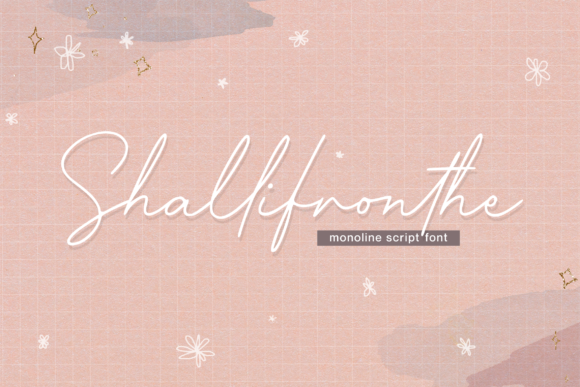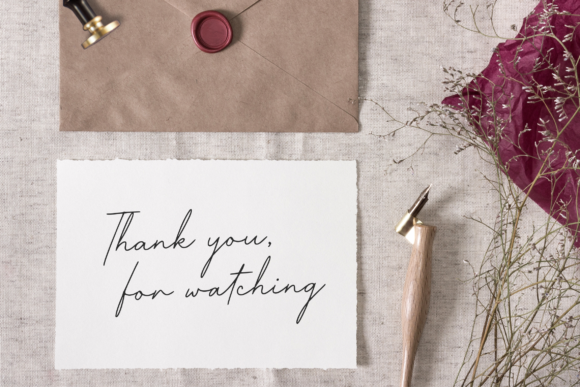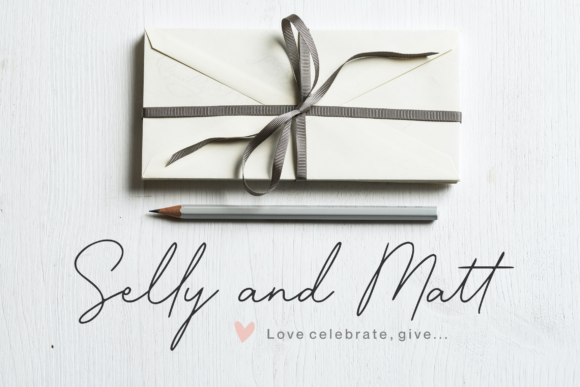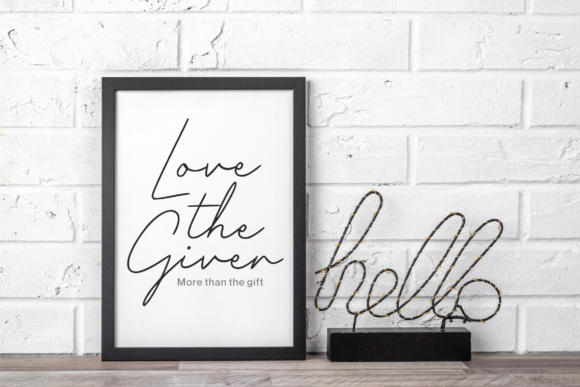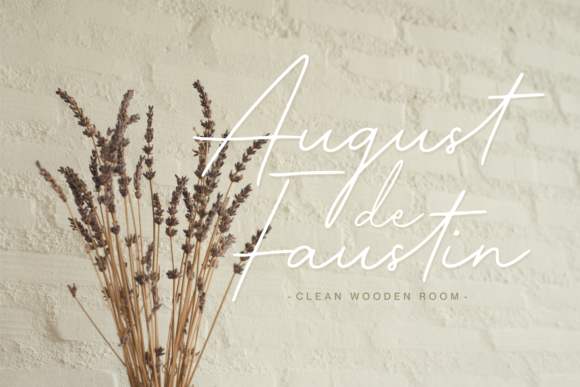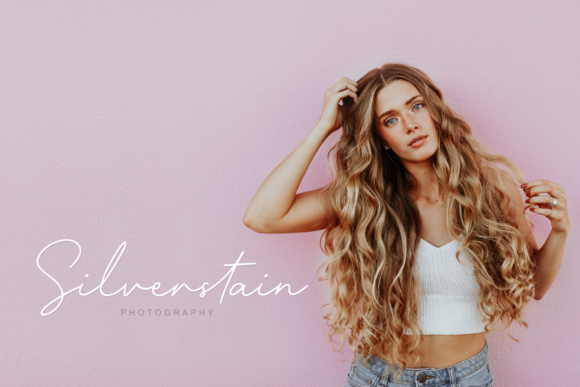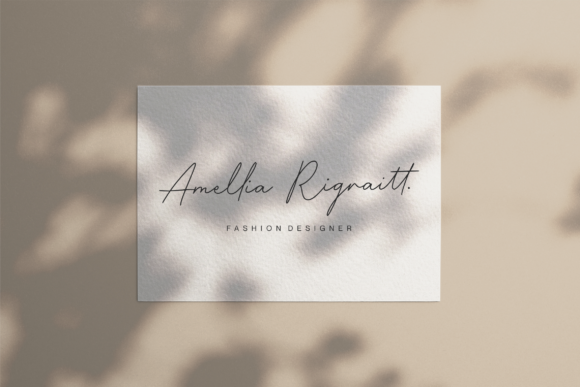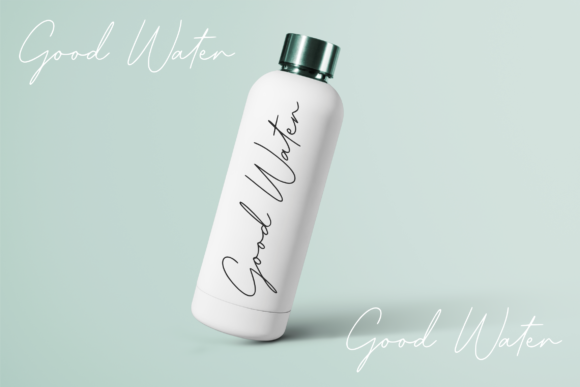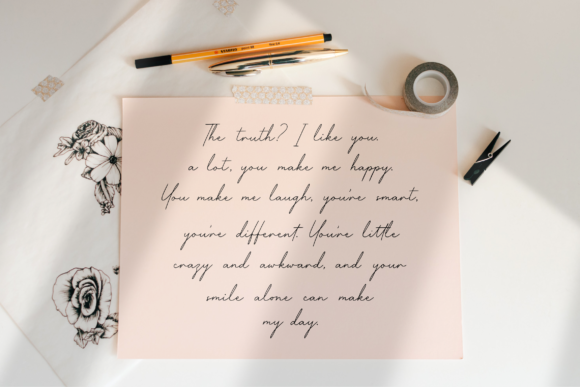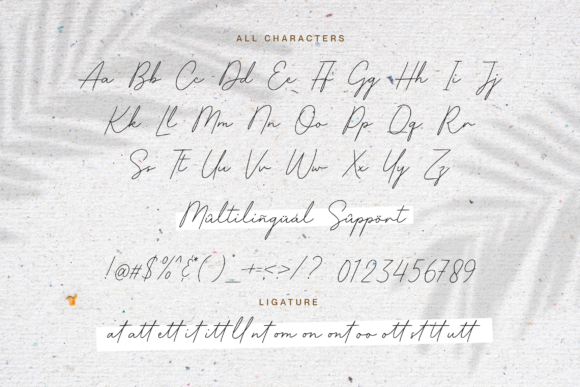
Shallifronthe Font
Shallifronthe is a modern handwritten monoline script. This font looks natural, stylish, and perfect for any extraordinary project that requires a handwritten feel. Its versatile style looks lovely on wedding invitations, thank you cards, quotes, greeting cards, logos, business cards, and every other design which needs a customized touch.